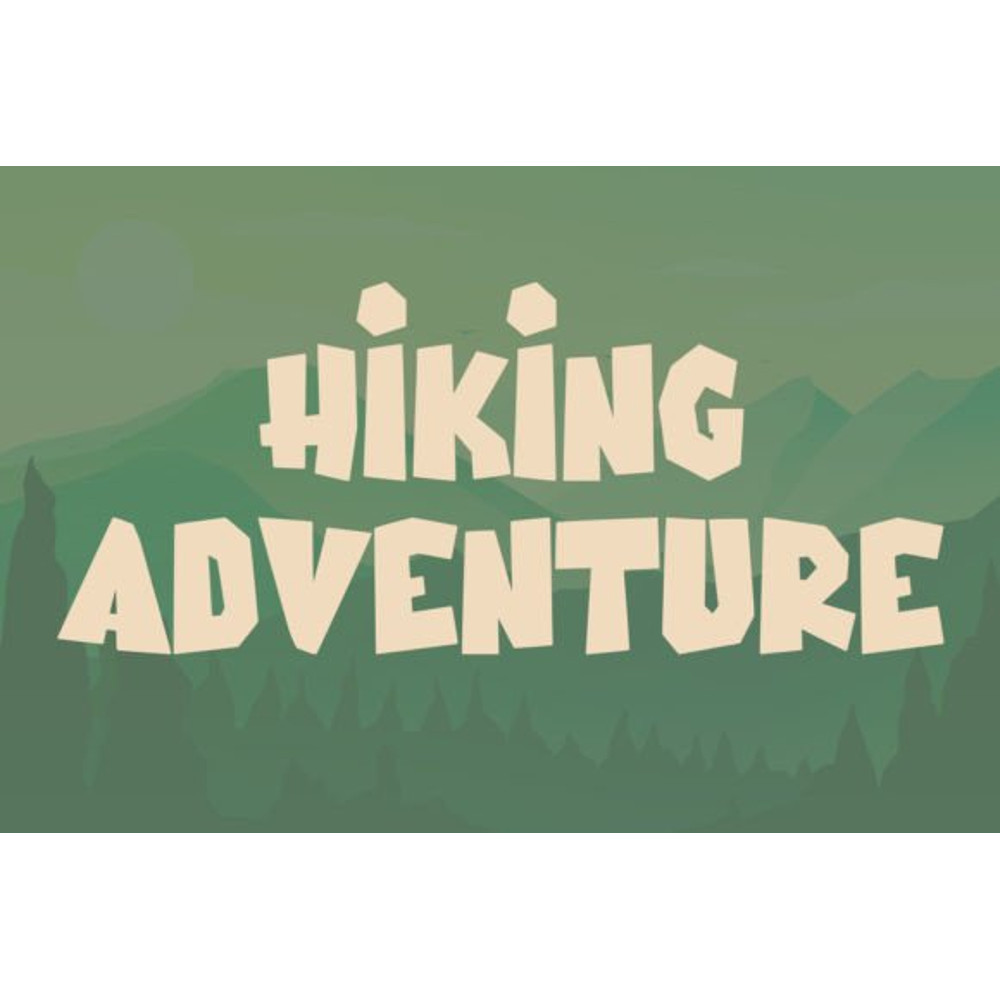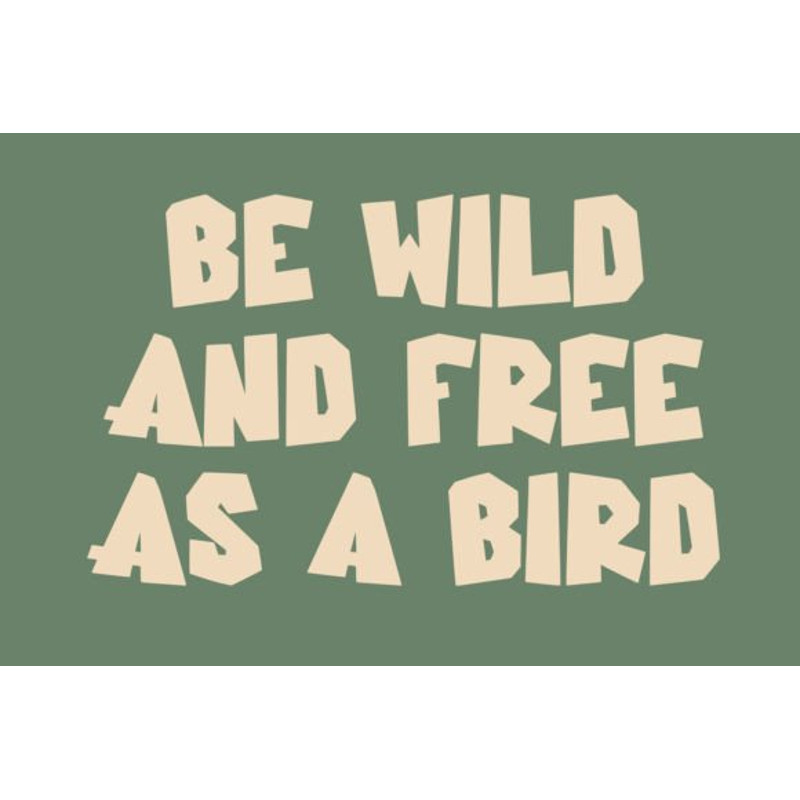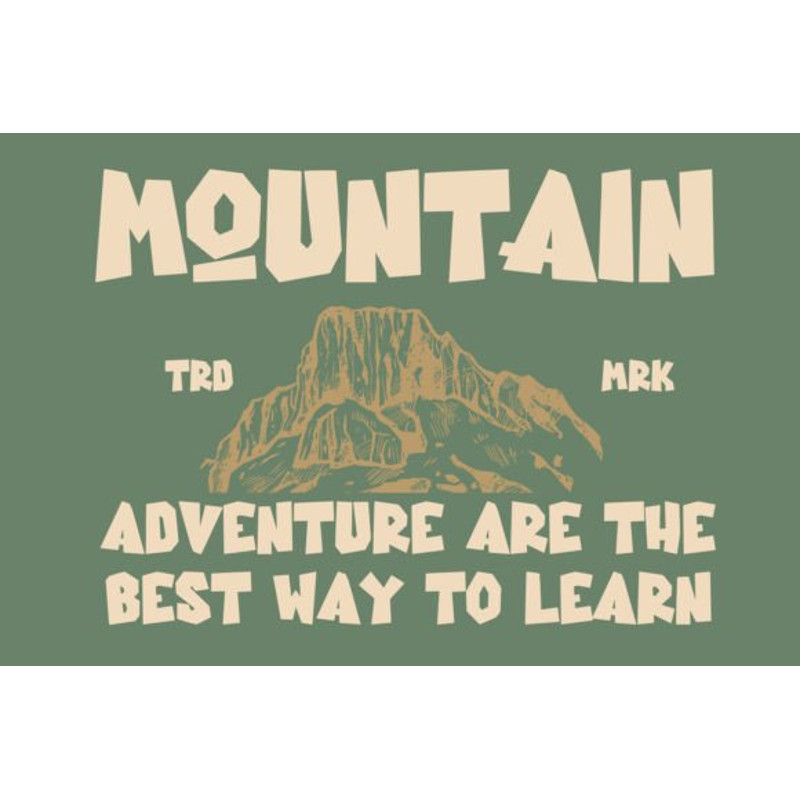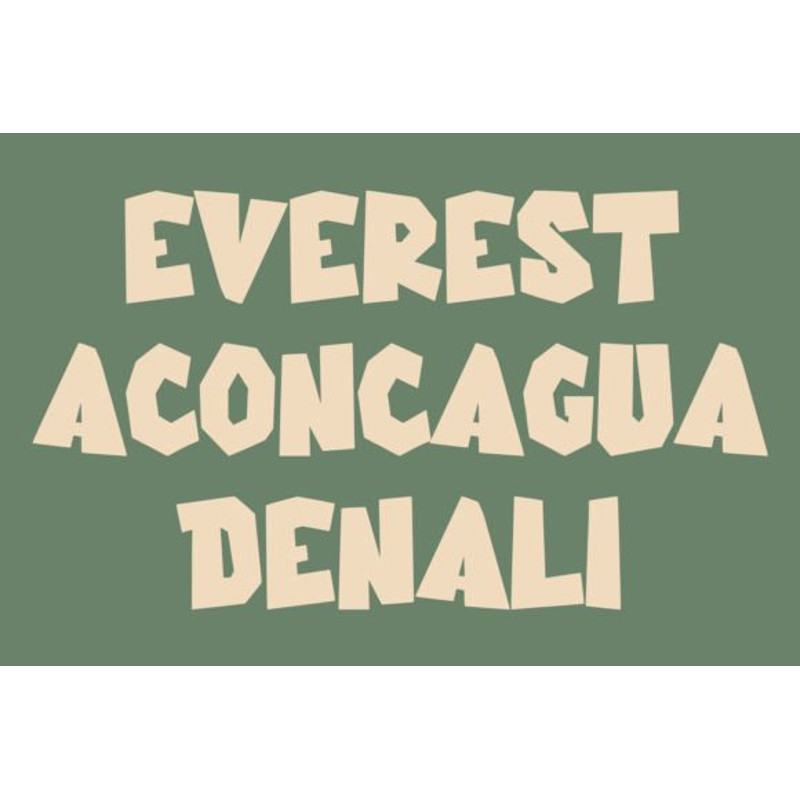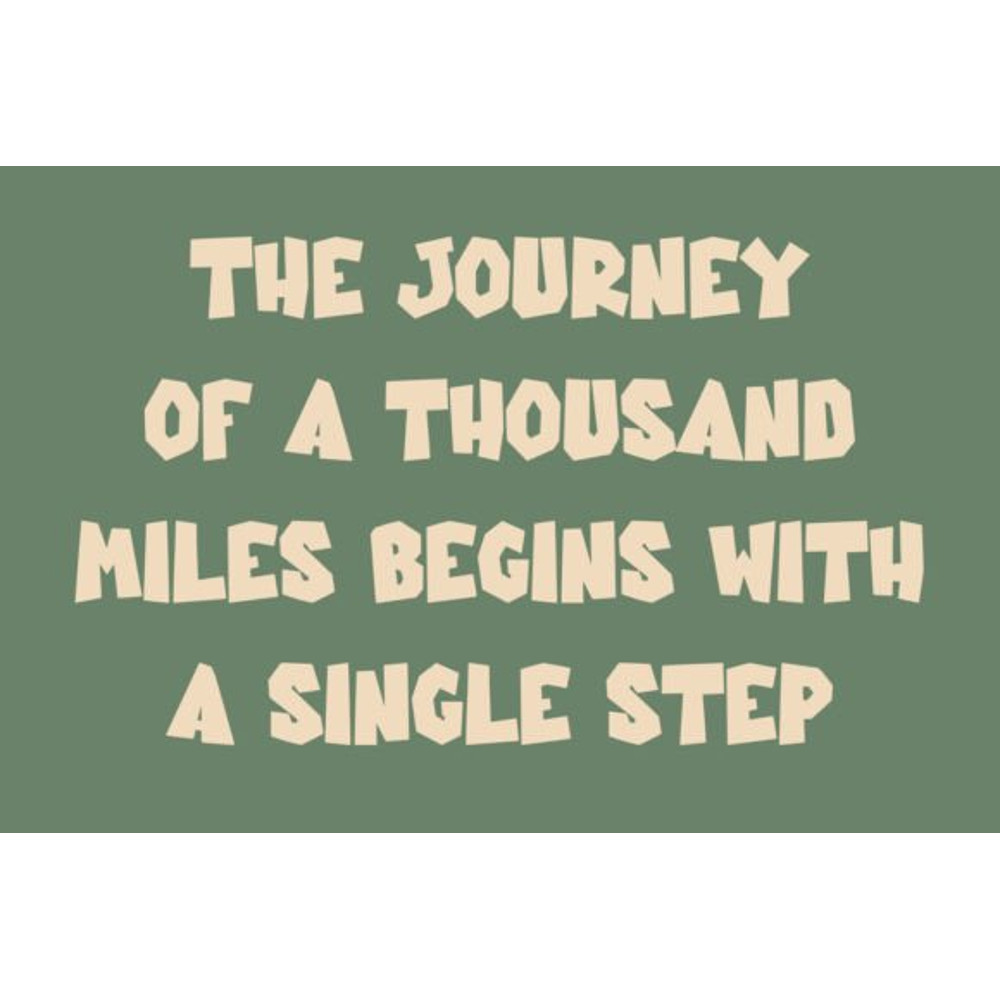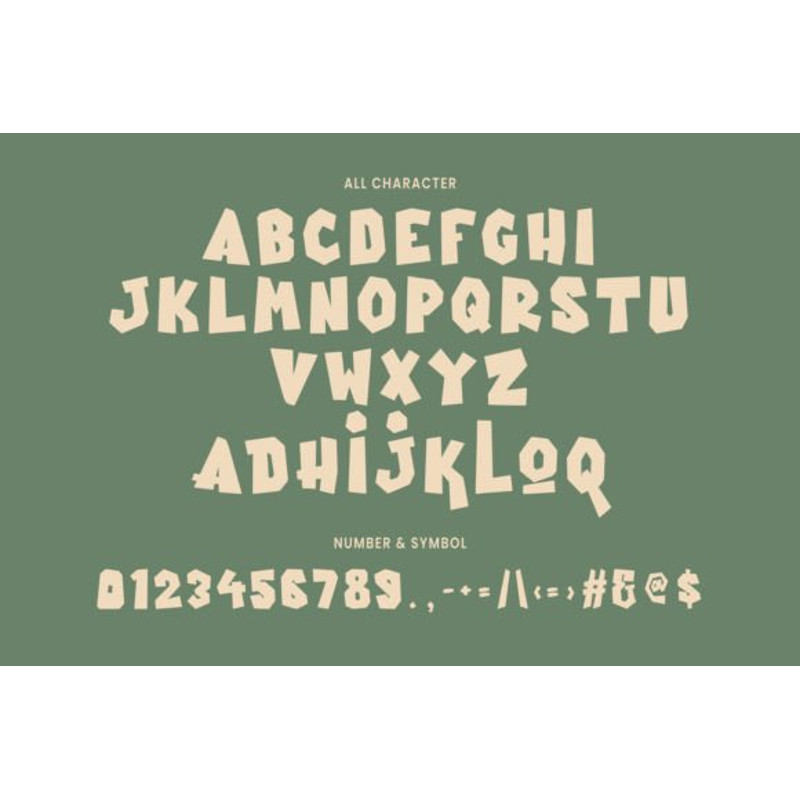
Dociel Font
Dociel playful display font. Heavy stroke, fun character with a bit of ligatures. To give you an extra creative work. Dociel playful display font support multilingual more than 100+ language. This font is good for logo design, Social media, Movie Titles, Books Titles, a short text even a long text letter and good for your secondary text font with script or serif. Make a stunning work with Dociel playful display font.